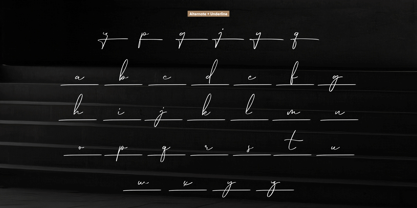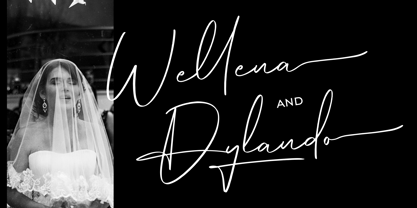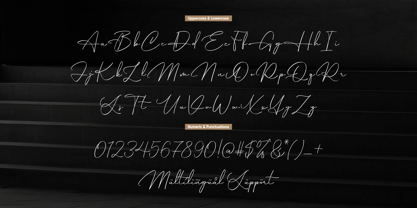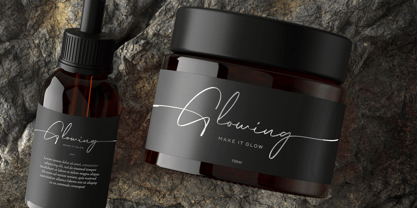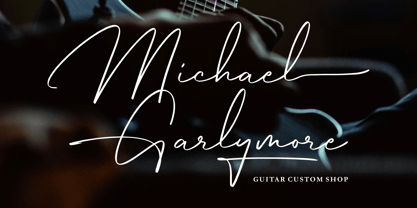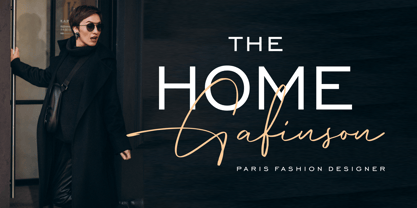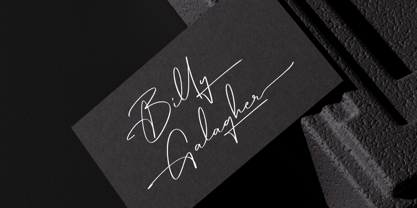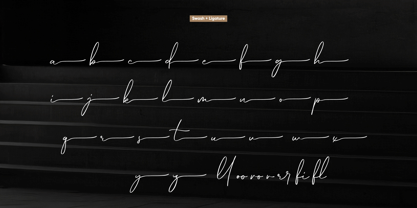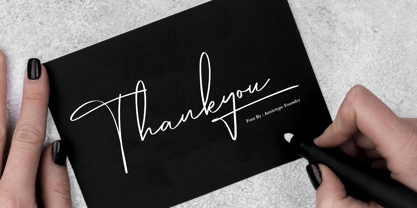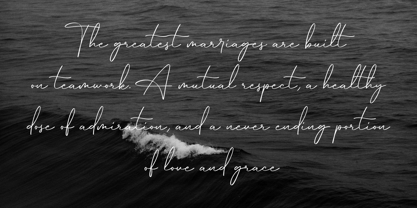
Hamburg Signature
by Anxietype Foundry
The Hamburg Signature Font Family was designed by Annas Rifky Anhar and published by Anxietype Foundry. Hamburg Signature contains 1 styles. More about this family
Introducing the Hamburg Signature, a font meticulously crafted by the world-renowned Anxietype Foundry. This exceptional typeface gracefully merges fashion and function, transforming the ordinary into exquisite artistry. Its versatility shines across numerous application possibilities - from enhancing the allure of logos to dramatizing magazine headlines, from adding a romantic touch to wedding invitations to lending a sense of sophistication to packaging designs. Hamburg Signature also shines on cosmetic labels and brings a striking appeal to company signatures. This is not just a typeface, but a calligraphy toolset ready to breathe life and elegance into any backdrop, making Hamburg Signature the preferred choice for those who value style, creativity, and distinction.
Designers: Annas Rifky Anhar
Foundry: Anxietype Foundry